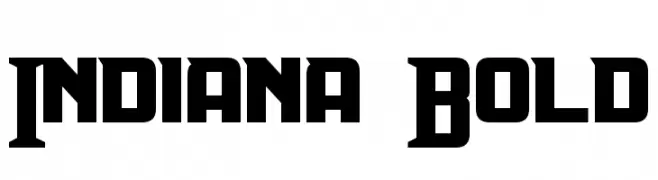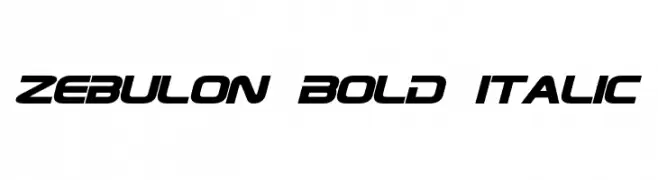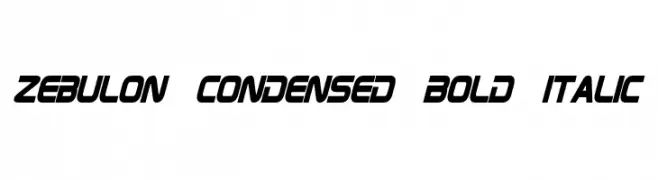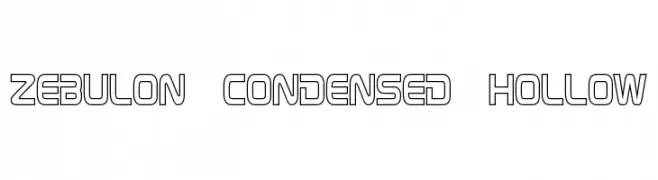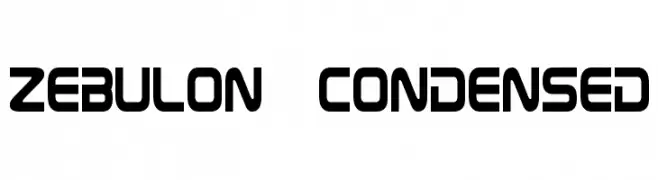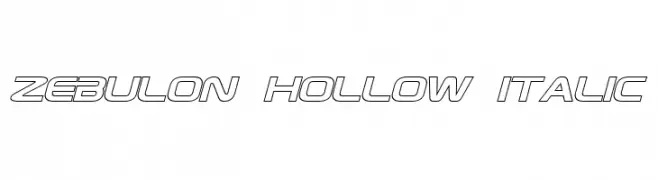
• Olde Thorass
A decorative and mystical font with intricate, stylized characters.
• Indiana Bold
A bold, geometric font perfect for impactful headlines and logos.
• Indiana Bold Italic
A bold, italicized font with strong, angular lines and a dynamic slant.
• Zebulon Condensed Hollow Italic
A modern, hollow, condensed italic font with a sleek, dynamic appearance.
• Zebulon Condensed Hollow
A bold, geometric, and hollow font with a futuristic and modern style.
• Zebulon Condensed Italic
A bold, condensed italic font with a modern, angular design.
• Zebulon Condensed Bold Italic
A bold, italic, and condensed font with a modern and dynamic style.
• Zebulon Bold Italic
A bold, italicized font with a futuristic and dynamic style.
• Zebulon Condensed
A bold, geometric, and futuristic font with a condensed style.
• Zebulon Hollow Italic
A futuristic, hollow italic font with a dynamic and modern design.